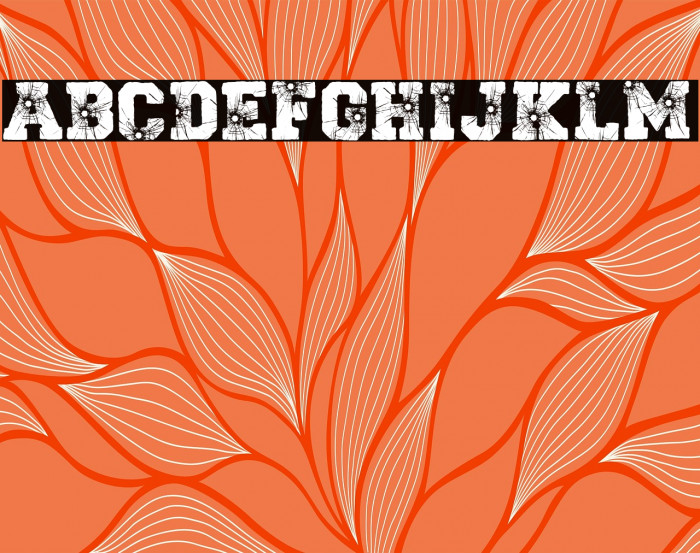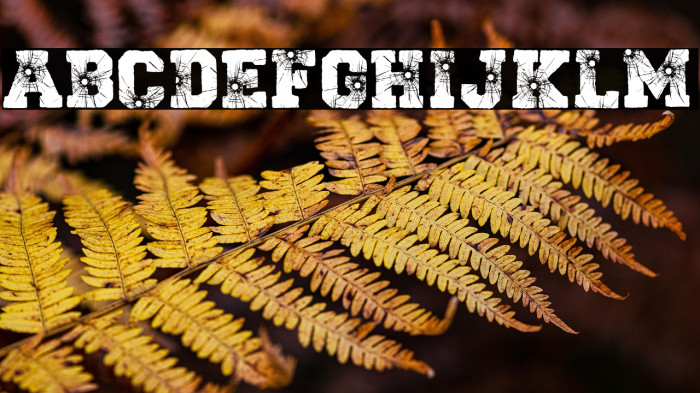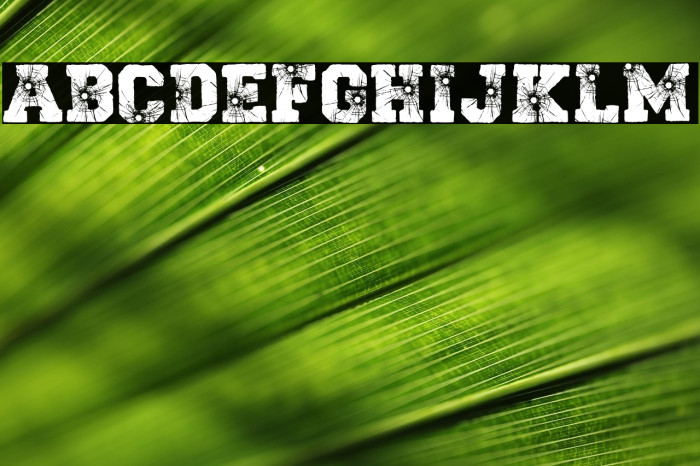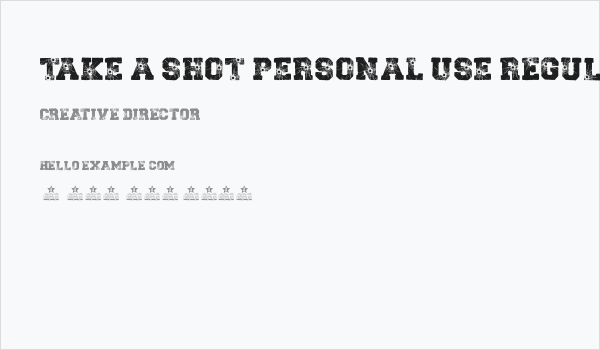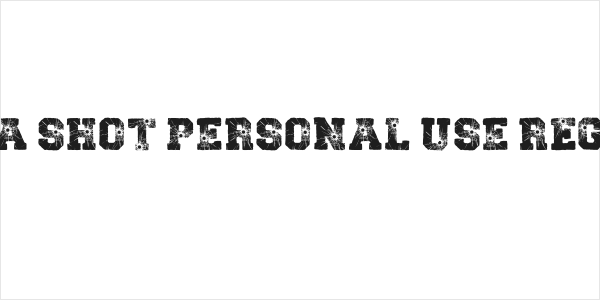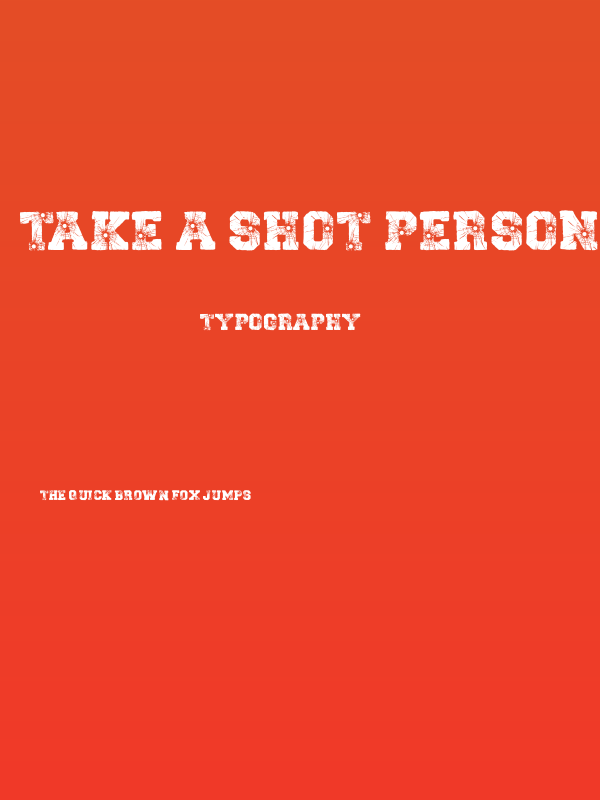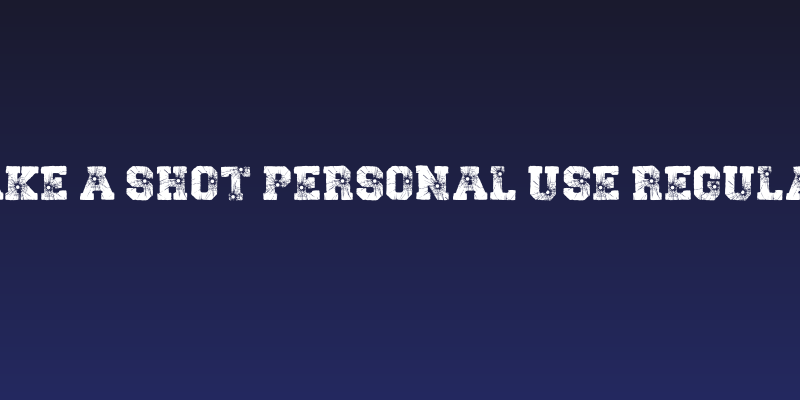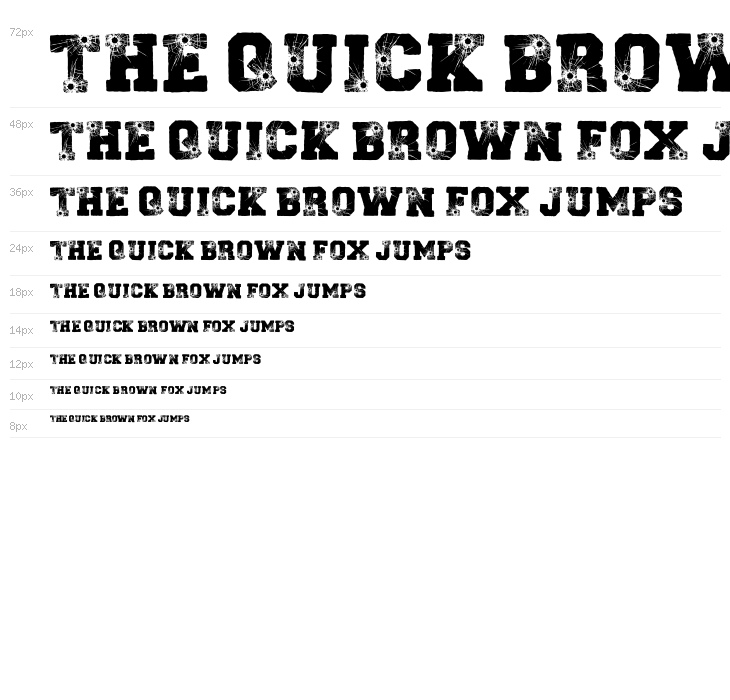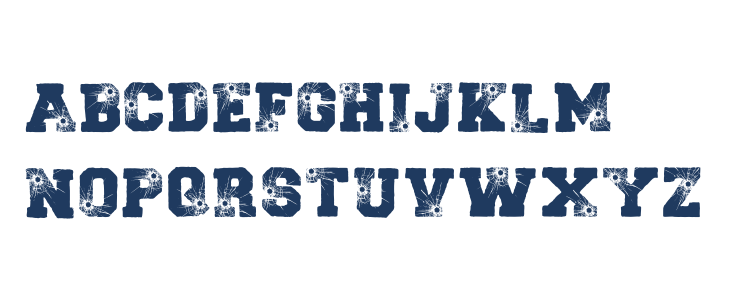
TAKE A SHOT PERSONAL USE Regular Font
TAKE A SHOT PERSONAL USE Regular Description
This font features a bold, distressed style with a textured appearance that resembles worn or weathered surfaces. The uppercase letters are prominent and eye-catching, making them ideal for impactful designs. The font's unique texture adds a rugged and vintage feel, perfect for projects that require a strong, bold statement. The characters are evenly spaced, ensuring readability while maintaining their distinctive style. This font is well-suited for creative projects that aim to capture attention and convey a sense of adventure or nostalgia.
| Proposed Projects | Ideal for posters, album covers, branding, and any design that requires a bold, vintage look. |